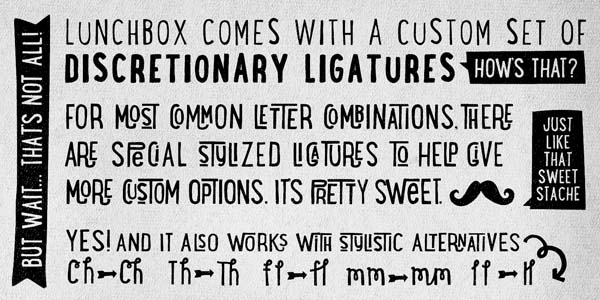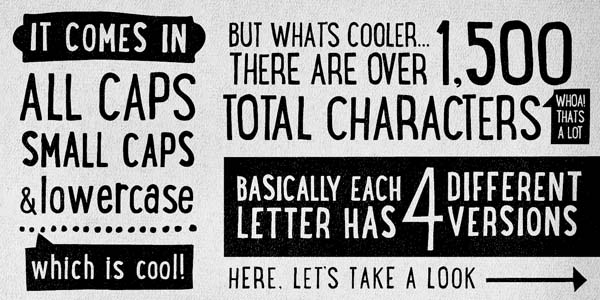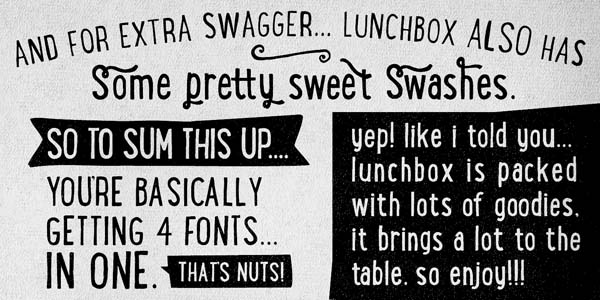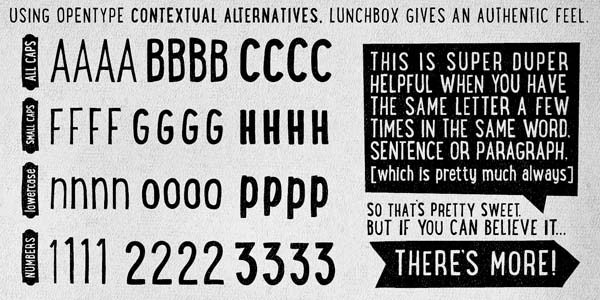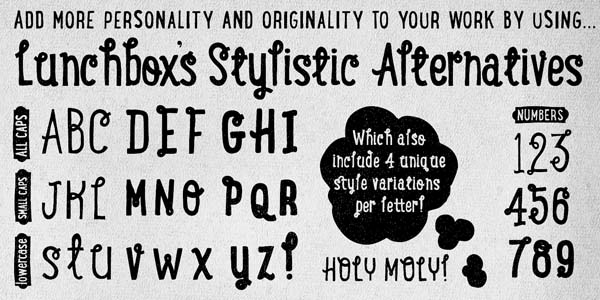
The Lunchbox font, a authentic hand drawn typeface.
The Lunchbox font family was designed in 2013 by Kimmy Kirkwood (Kimmy Design). Its hand drawn typeface provides countless customizable options. If you use Lunchbox’s OpenType features, over 1,500 different characters are available for you to create a very authentic design. The included contextual alternatives give each letter 4 different styles. Lunchbox is also packed with stylistic alternatives, discretionary ligatures, swashes, ornaments, and a custom set of small caps, each with 4 style variations as well. All these special options give your texts a unique hand drawn look. The Lunchbox type family is available as Webfont and Desktop font.